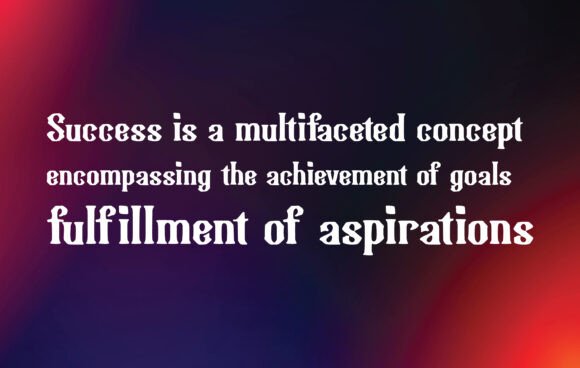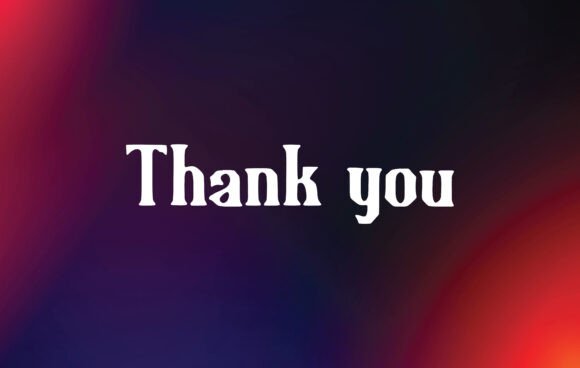
Cecilia Font: Elevate Your Creative Projects with Elegance and Sophistication
Are you a designer, craftor, or creative enthusiast looking for a font that can take your projects to the next level? Look no further than Cecilia Font, a lovely and beautiful typeface that is sure to impress. With its unique blend of elegance and sophistication, Cecilia Font is the perfect choice for creating eye-catching logos, branding, and quotes that will leave a lasting impression.
The Beauty of Cecilia Font
Cecilia Font is a stunning typeface that boasts a distinctive and refined aesthetic. Its elegant lines, curves, and shapes make it an ideal choice for designers who want to add a touch of sophistication to their projects. Whether you’re working on a logo, brochure, or social media graphic, Cecilia Font is sure to bring a level of refinement and poise that will set your work apart from the rest.
Why Choose Cecilia Font?
So, what makes Cecilia Font so special? Here are just a few reasons why it’s a top choice among designers and crafters:
- Versatility: Cecilia Font is incredibly versatile, making it suitable for a wide range of projects, from logos and branding to quotes and social media graphics.
- Elegance: With its refined lines and curves, Cecilia Font exudes elegance and sophistication, making it perfect for high-end brands and luxury projects.
- Readability: Despite its ornate appearance, Cecilia Font is highly readable, even at small sizes, making it ideal for body text and captions.
- Uniqueness: Cecilia Font has a distinctive look that sets it apart from more common fonts, ensuring that your projects will stand out from the crowd.
Using Cecilia Font for Logos and Branding
One of the most popular uses for Cecilia Font is in logo design and branding. Its elegant appearance makes it perfect for creating high-end logos that convey sophistication and luxury. Here are a few tips for using Cecilia Font in your logo design and branding projects:
- Keep it simple: While Cecilia Font is ornate, it’s essential to keep your logo design simple and focused. Avoid clutter and ensure that your logo is scalable.
- Experiment with colors: Cecilia Font looks stunning in a range of colors, from metallic silvers and golds to rich jewel tones. Experiment with different colors to find the perfect combination for your brand.
- Consider pairing with other fonts: While Cecilia Font is beautiful on its own, it can also be paired with other fonts to create a unique and interesting look.
Tips for Using Cecilia Font in Your Creative Projects
Here are a few more tips for using Cecilia Font in your creative projects:
- Use it sparingly: While Cecilia Font is beautiful, it’s essential to use it sparingly to avoid overwhelming your design. Use it for headings, titles, or key phrases to add emphasis and create visual interest.
- Play with font sizes: Cecilia Font looks stunning at a range of font sizes. Experiment with different sizes to create visual hierarchy and add depth to your design.
- Experiment with effects: Cecilia Font can be used with a range of effects, from subtle shading to bold textures. Experiment with different effects to add depth and interest to your design.